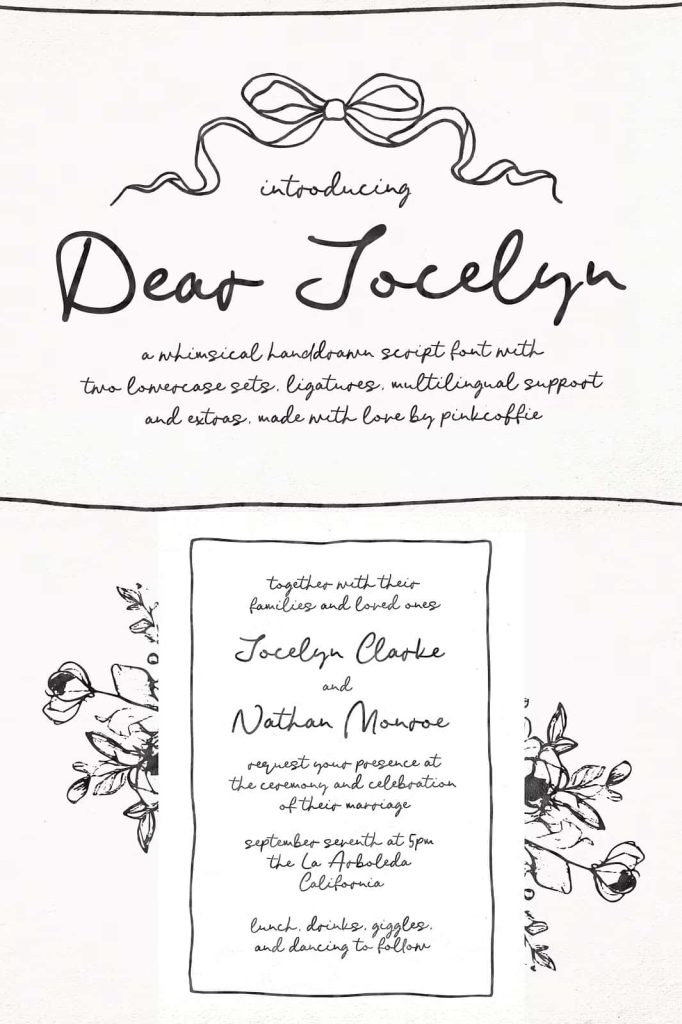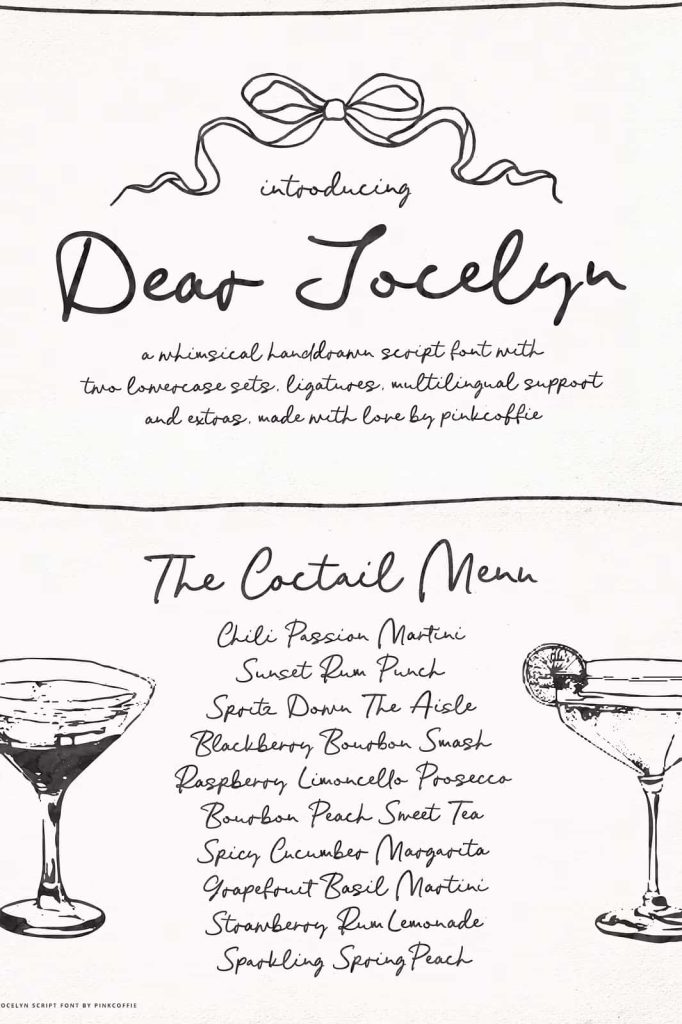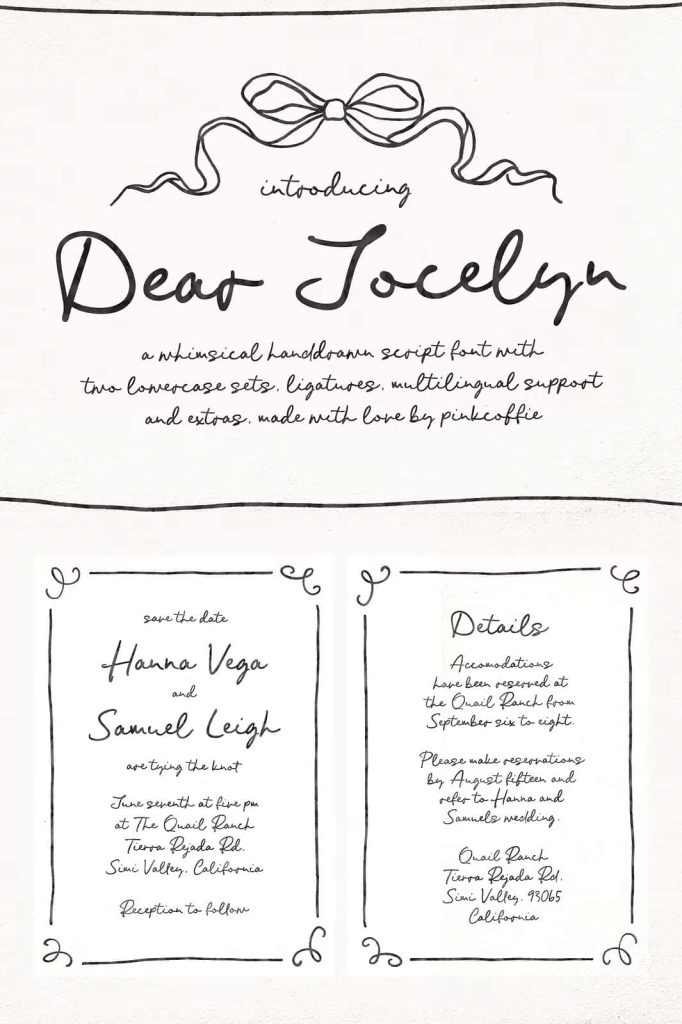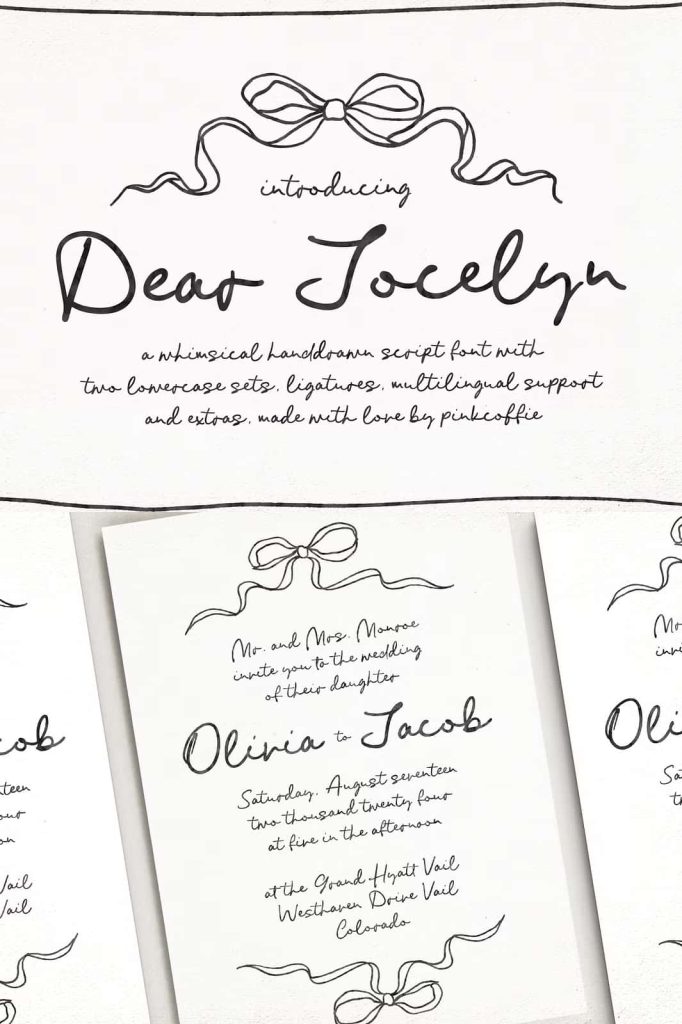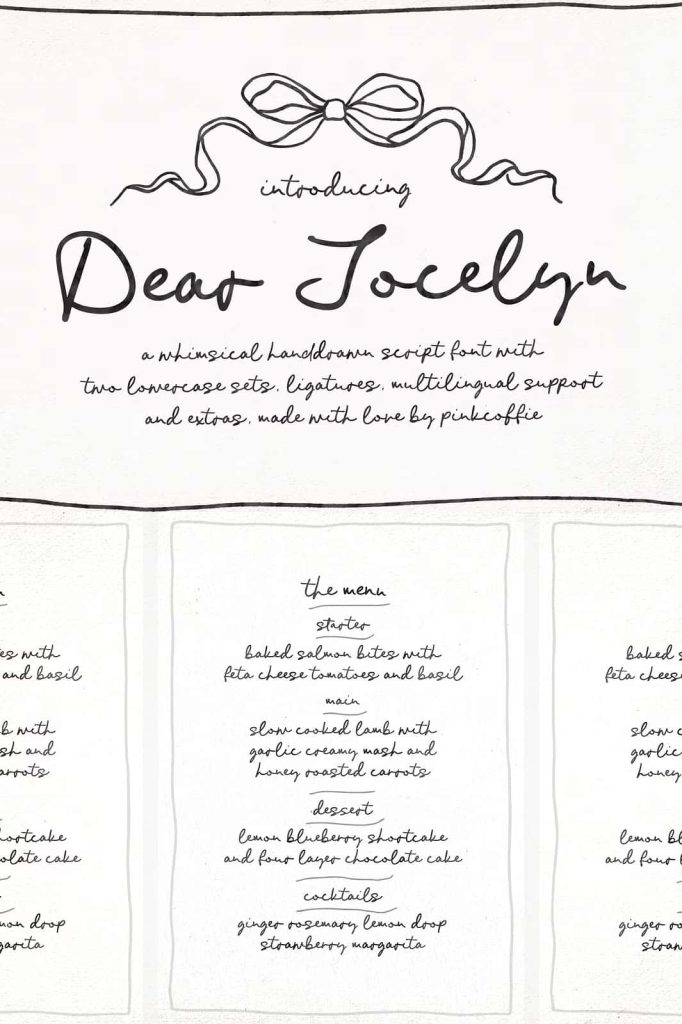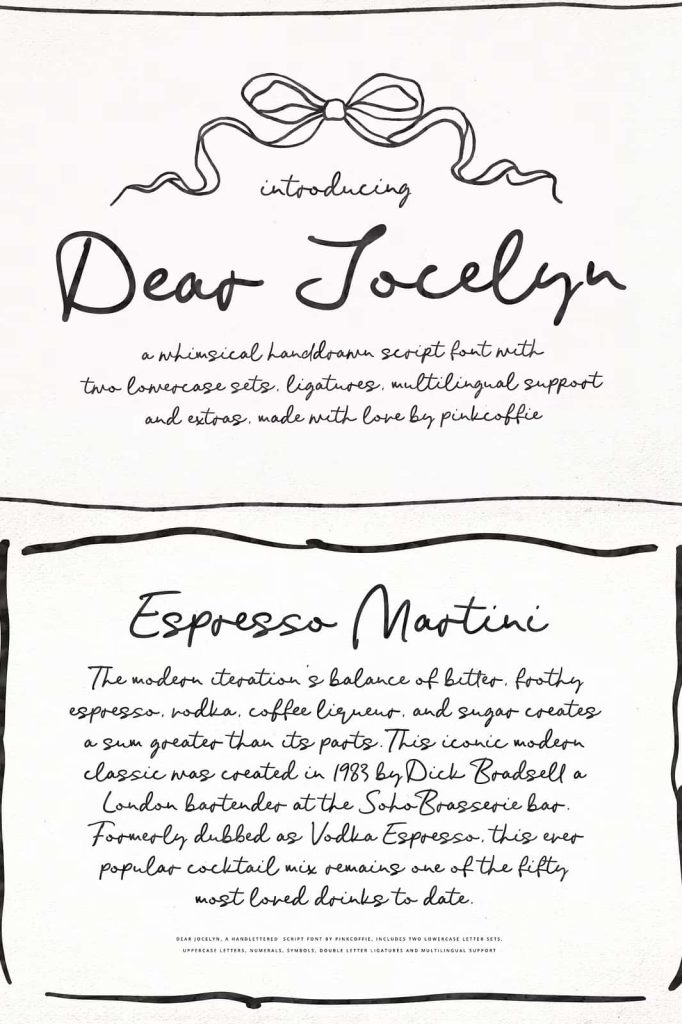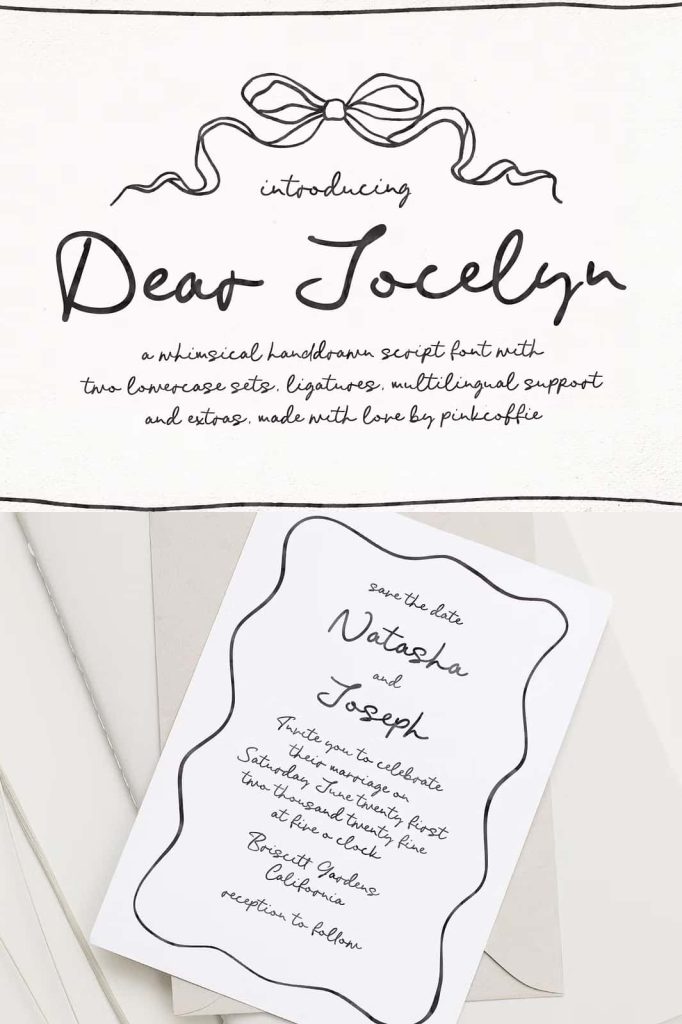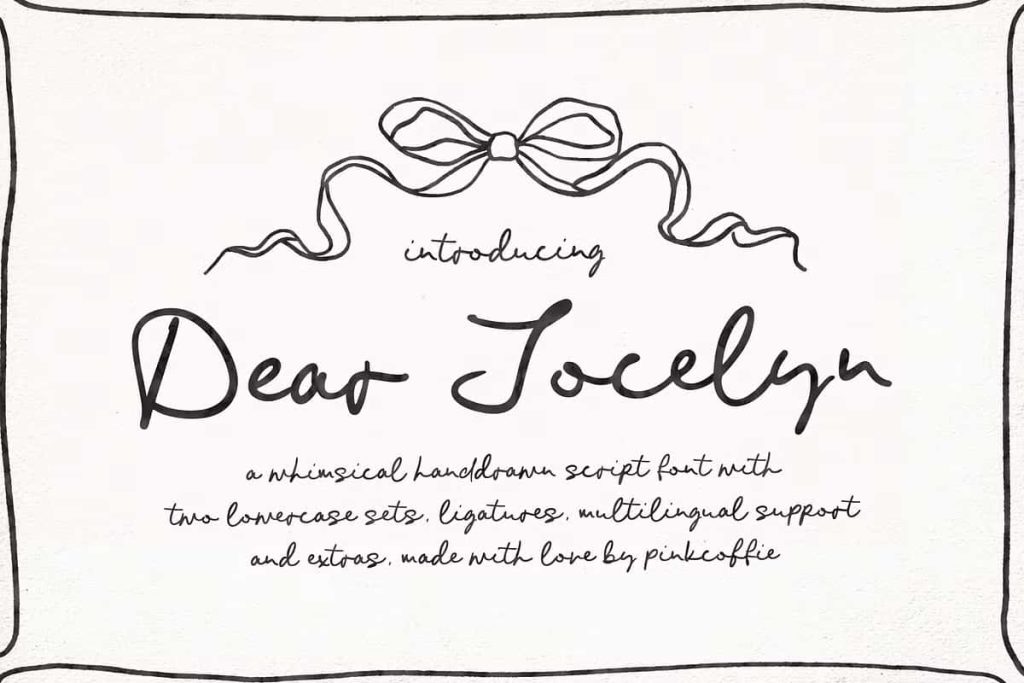
Dear Jocelyn | Handwritten ScriptleastedJuly 28, 2025Fonts Say hello to Dear Jocelyn, a whimsical handlettered script font inspired by quirky handmade wedding invitations Download